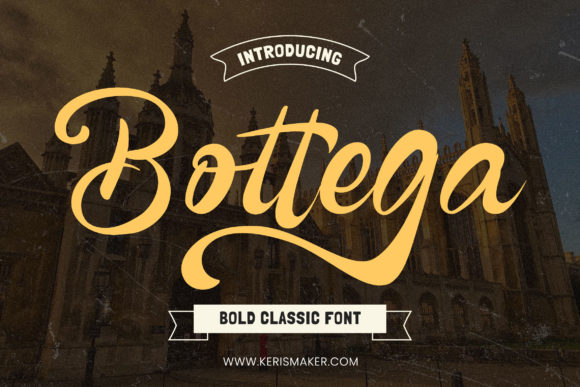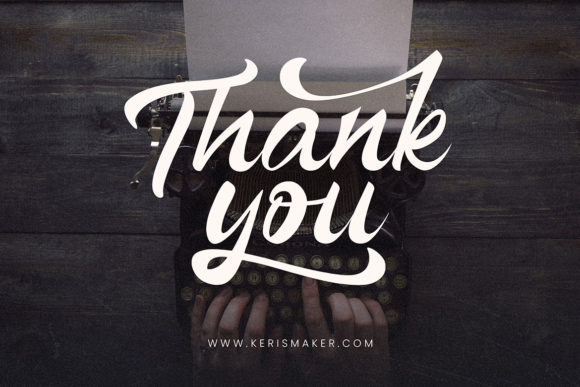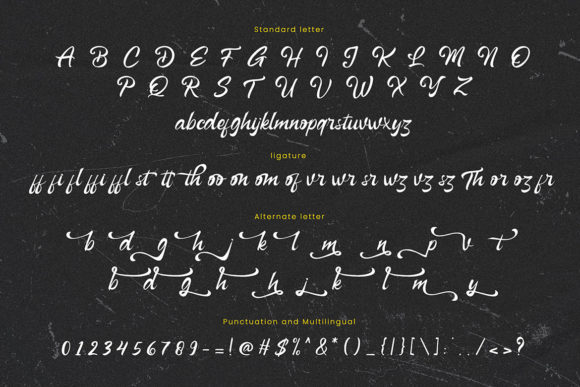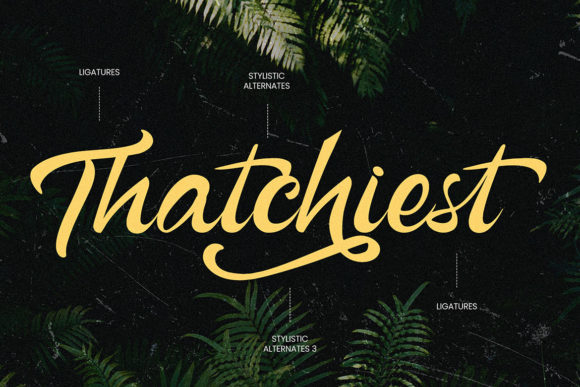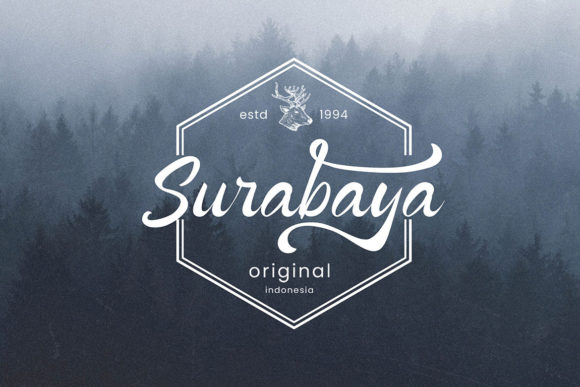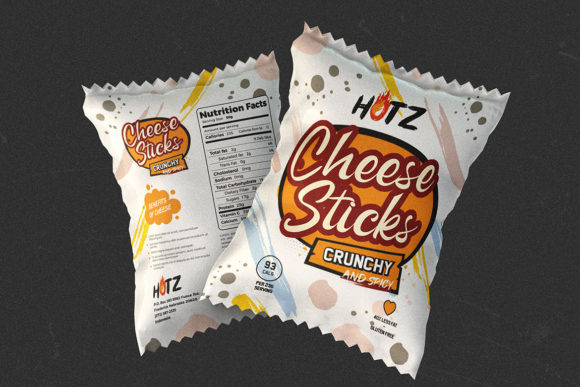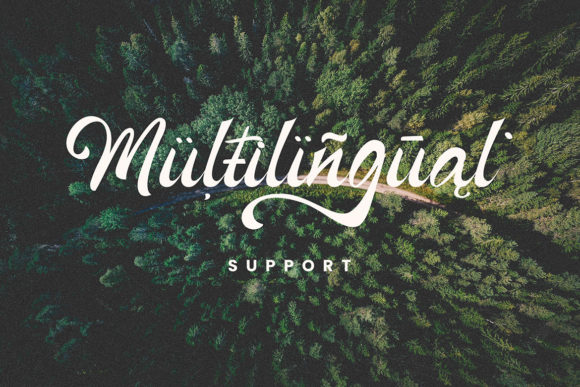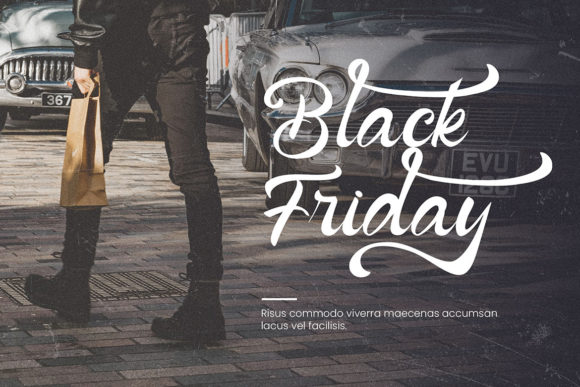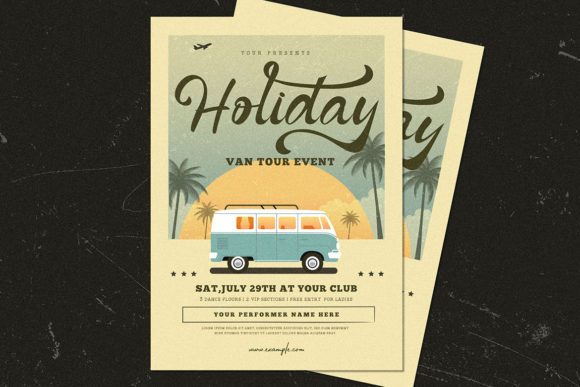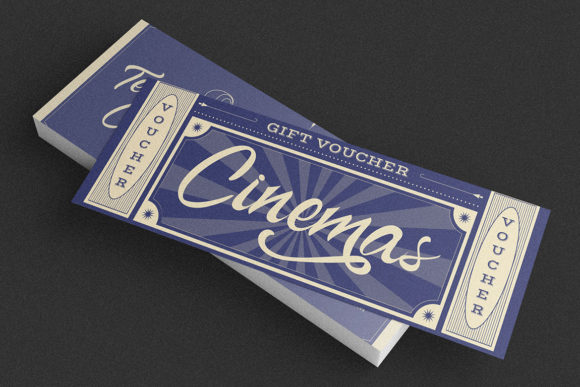
Bottega Font
About Bottega Font
Bottega is a script bold classic font that embodies a relaxed theme, showcasing a lovely and natural style. Crafted to emulate the appearance of a natural handwritten script, this typeface is a versatile choice suitable for a range of applications. Whether used in logo design, social media graphics, movie titles, book titles, short or long text, Bottega also pairs well with both sans-serif and serif fonts as a complementary secondary text.
The bold and classic nature of Bottega imparts a sense of confidence and timelessness to your designs. Its relaxed theme ensures a friendly and approachable aesthetic, making it suitable for diverse creative projects.
For logo design, Bottega brings a touch of authenticity and warmth, creating a distinctive brand identity with its natural handwritten style. In social media graphics, the font adds a relaxed and inviting quality to your posts, contributing to a visually cohesive online presence.
In movie titles and book titles, Bottega introduces a classic and timeless elegance that enhances the overall theme and atmosphere of your project. Whether utilized for short or long text, the font maintains readability and injects a sense of natural flow into your written content.
As a secondary font alongside sans-serif or serif typefaces, Bottega offers a harmonious balance, creating visually appealing typographic compositions. Its versatility allows it to seamlessly integrate into various design contexts, providing a versatile and reliable typographic solution.
In summary, Bottega is more than just a font; it’s a script bold classic design element that adds a relaxed and timeless touch to your projects. Whether employed for logos, social media, titles, or as secondary text, Bottega brings a natural and inviting quality to your designs, making them stand out with a touch of classic charm.